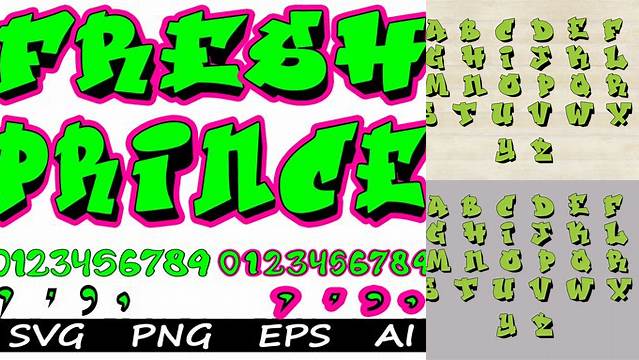
Free Fresh Prince Font Generator: Get The Bel-Air Look
Hey everyone! Ever wanted to capture that totally rad vibe of the Fresh Prince of Bel-Air? You know, the show that defined a generation with its catchy theme song, awesome fashion, and of course, that unforgettable font? Well, you're in luck, because we're diving deep into the world of the Fresh Prince font and showing you how to get your hands on a free font generator to create your own Fresh Prince-inspired designs. So, buckle up, grab a seat, and get ready to learn how to bring back those 90s vibes in your projects!
What Makes the Fresh Prince Font So Iconic?
Alright, let's talk about what makes the Fresh Prince font so darn special. It's not just any font, folks; it's a statement! The font, often seen in the show's intro and throughout its merchandise, is a bold, chunky, and slightly rounded display font. It's got that classic 90s hip-hop aesthetic that instantly transports you back to the days of bright colors, boomboxes, and the freshest of fashion. The font's unique character stems from its playful yet strong appearance, embodying the show's blend of humor, heart, and style. It's instantly recognizable, and using it instantly gives your design that nostalgic edge that many people are looking for. The Fresh Prince font isn't just a collection of letters; it's a representation of a cultural moment, a time when Will Smith was quickly becoming a household name and hip-hop culture was taking over the world. The font's bold and friendly nature mirrors the show's overall feel, making it an excellent choice for anyone looking to evoke a similar sense of fun and approachability. The font's simplicity also makes it versatile. It can be used in various applications, from creating posters and flyers to designing social media graphics or even personalizing your website with a touch of 90s nostalgia. Because of its recognizable nature, using the Fresh Prince font can instantly make your design stand out from the crowd. It can be a great conversation starter, instantly grabbing attention and sparking interest. In the digital age, where visual content is king, using the Fresh Prince font can be a unique way to express your creativity. The font has stood the test of time, remaining popular among designers and fans alike, serving as a testament to the show's enduring appeal.
When you use the Fresh Prince font, you're not just choosing a typeface; you're embracing a lifestyle. You're part of a legacy that celebrated family, laughter, and the pursuit of dreams. You are able to capture the essence of the show and share that feeling with others. So, whether you're a graphic designer, a social media enthusiast, or simply a fan of the show, there's no denying the power of this font. Its unique characteristics help people evoke a sense of nostalgia, making it ideal for anyone looking to pay homage to a pop culture icon. The font can be a fantastic way to connect with audiences who share your love for the Fresh Prince of Bel-Air, reminding them of the show's memorable moments and characters. It is a stylish font that captures the essence of the show's vibe and allows users to create unique and engaging visual content. So, if you are looking for a way to add personality and character to your designs, the Fresh Prince font is an excellent choice. It is a great way to capture the essence of the show and give your designs a distinct personality.
Using the Fresh Prince Font for Your Designs
Alright, you've found a free font generator, and you're ready to start designing. Now what? Well, the possibilities are pretty much endless, guys! Think about these ideas for inspiration:
- Social Media Posts: Create eye-catching graphics for your Instagram, Facebook, or Twitter posts. Use the font for quotes, announcements, or even just to jazz up your profile picture.
- Party Invitations: Planning a 90s-themed party? Use the Fresh Prince font to make your invitations pop. It's an instant ticket back to the era of the show.
- Merchandise: Design your own t-shirts, mugs, or other merchandise featuring the font. Perfect for fans who want to rep the Fresh Prince in style.
- Website Graphics: Add a touch of nostalgia to your website with headers, buttons, or other visual elements. The font is a great way to grab attention and create a memorable user experience.
Remember, the key is to have fun and let your creativity run wild. The Fresh Prince font is all about embodying the show's playful and vibrant energy, so don't be afraid to experiment with colors, layouts, and designs. Consider the context of your design. Is it for a casual event or a more formal presentation? Using the font effectively is about more than simply typing out the text. It is about understanding the message you wish to convey. Think about the color scheme that will complement the font and create a visually appealing design. Consider the overall mood and tone of your design and how the font can enhance it. If you're unsure where to start, look at examples of how the font was used in the show's intro or other promotional materials. This can provide inspiration and help you understand the best ways to utilize the font for your project. Make sure that you can make the font readable, regardless of the background or other visual elements. If the design is going on a t-shirt, for instance, make sure the text contrasts well with the shirt color. Take the time to explore different combinations and arrangements to create a design that is both visually appealing and conveys your intended message effectively. Don't be afraid to experiment and see what works best for you!
Tips for Using Font Generators Effectively
Using a free font generator is easy, but here are a few tips to get the most out of your experience:
- Choose the Right Generator: Not all generators are created equal. Some may offer more customization options or better output quality than others. Research different options and find one that meets your needs.
- Experiment with Colors: The Fresh Prince font looks great in bright, bold colors. Don't be afraid to try out different color combinations to see what works best for your design.
- Consider the Background: Make sure the font is legible against the background. If you're using the font on a busy background, consider adding a drop shadow or outline to make it stand out.
- Save and Share: Once you're happy with your design, save it in a high-resolution format to maintain quality. Share your creations on social media and show off your Fresh Prince-inspired designs.
So there you have it, folks! Everything you need to know about the Fresh Prince of Bel-Air font and how to use a free font generator to bring those classic vibes to your projects. It's a fantastic way to pay homage to a beloved show, add some personality to your designs, and capture the nostalgia of the 90s. So, go out there, get creative, and make some magic! Keep creating and always remember to stay fresh! If you have any questions, feel free to ask!